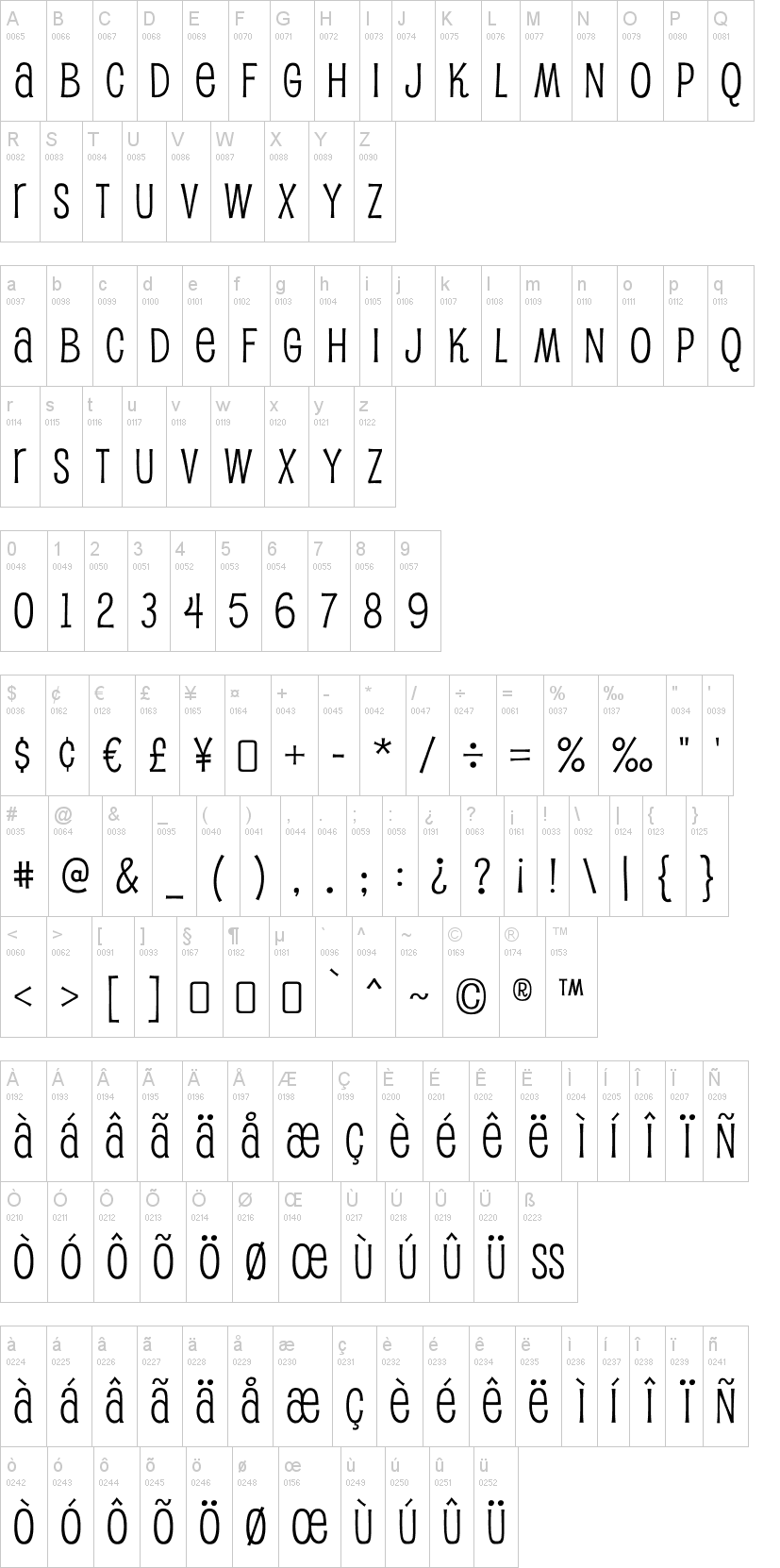
Шрифт Pupcat
Pupcat was inspired by posters from 1960s Hollywood comedies. Its cute, thin and lives for fun. Dig the OpenType features: an alternate A, E and R, fractions, ordinals & math symbols. Don't forget to read the files inside the zip for details. Updated in 2012.